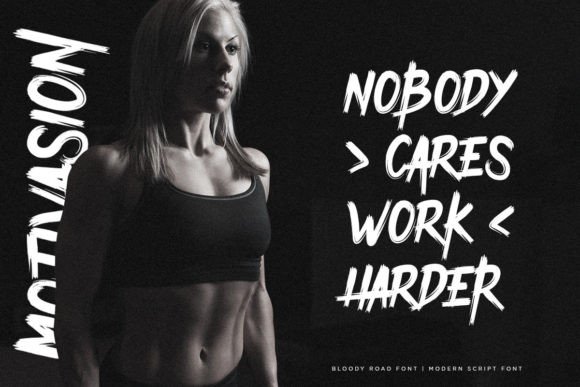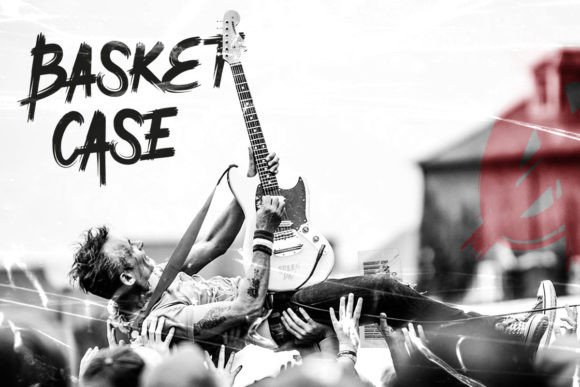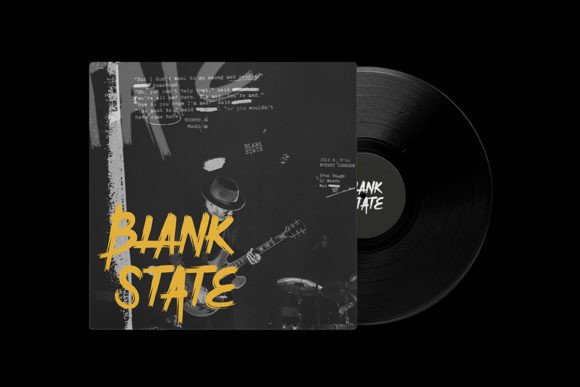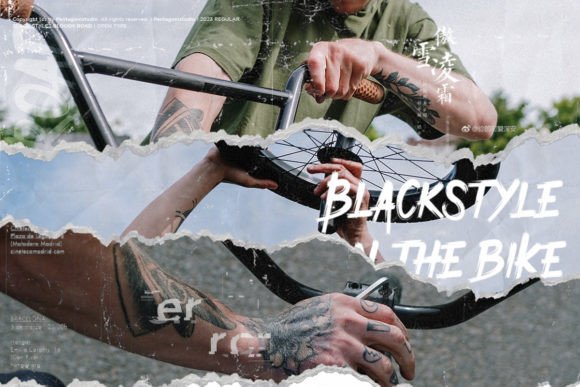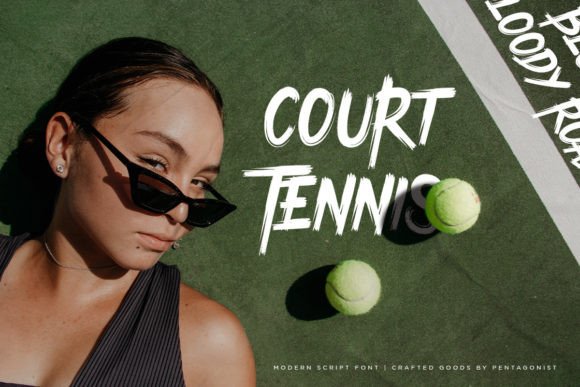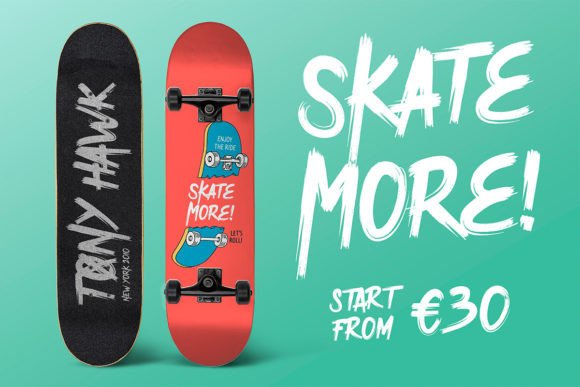
Bloody Road Font: The Ultimate Display Font for Bold Designs
Are you tired of using the same old fonts for your design projects? Do you want to make a statement and grab the attention of your audience? Look no further than the Bloody Road Font, a stunning and provocative display font that’s sure to elevate your designs to the next level.
What is Bloody Road Font?
Bloody Road Font is an eye-catching and bold display font that’s perfect for designers who want to add a touch of drama and flair to their projects. Its stirring and stunning calligraphy make it an excellent fit for various design projects, from posters and flyers to logos and branding materials.
Key Features of Bloody Road Font
- PUA Encoded: Bloody Road Font is PUA encoded, which means you can easily access all of the fantastic glyphs and ligatures. This makes it easy to customize your text and add a personal touch to your designs.
- Stunning Calligraphy: The font features beautiful, hand-crafted calligraphy that’s sure to impress. The intricate details and swirling lines make it a true showstopper.
- Highly Versatile: Bloody Road Font is perfect for a wide range of design projects, from bold and edgy to elegant and sophisticated.
Why Choose Bloody Road Font?
So why choose Bloody Road Font over other display fonts on the market? Here are just a few reasons why designers and crafters love this font:
- Unique and Eye-Catching: Bloody Road Font is truly one-of-a-kind. Its bold and provocative design is sure to grab attention and make your designs stand out.
- Easy to Use: Despite its complex and intricate design, Bloody Road Font is surprisingly easy to use. The PUA encoding makes it simple to access all of the glyphs and ligatures, and the font is compatible with most design software.
- High-Quality: Bloody Road Font is a high-quality font that’s been carefully crafted to ensure that it looks great in any design. The font is scalable and can be used for both print and digital projects.
How to Use Bloody Road Font in Your Designs
So how can you use Bloody Road Font in your designs? Here are a few ideas to get you started:
- Posters and Flyers: Use Bloody Road Font to create bold and eye-catching posters and flyers that grab attention and drive results.
- Logos and Branding: Add a touch of drama and flair to your logos and branding materials with Bloody Road Font.
- Social Media Graphics: Use Bloody Road Font to create stunning social media graphics that stand out in crowded feeds.
Tips and Tricks for Getting the Most Out of Bloody Road Font
Here are a few tips and tricks for getting the most out of Bloody Road Font:
- Experiment with Different Colors: Bloody Road Font looks great in a wide range of colors, from bold and bright to subtle and muted. Experiment with different colors to find the perfect look for your design.
- Play with Ligatures: The PUA encoding of Bloody Road Font makes it easy to access all of the ligatures and glyphs. Play around with different combinations to add a personal touch to your designs.
- Use it Sparingly: While Bloody Road Font is certainly eye-catching, it can be overwhelming if used too much. Use it sparingly to add a touch of drama and flair to your designs.
In conclusion, Bloody Road Font is a stunning and provocative display font that’s perfect for designers who want to add a touch of drama and flair to their projects. With its PUA encoding, stunning calligraphy, and highly versatile design, it’s an excellent choice for a wide range of design projects. Whether you’re creating posters, logos, or social media graphics, Bloody Road Font is sure to elevate your designs to the next level.